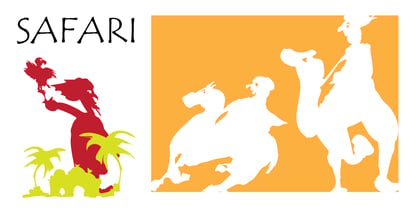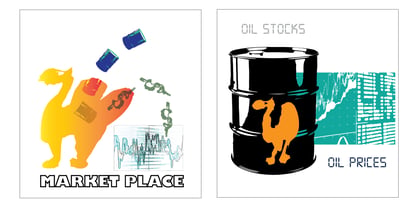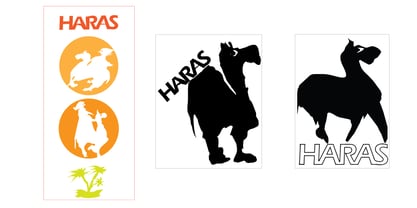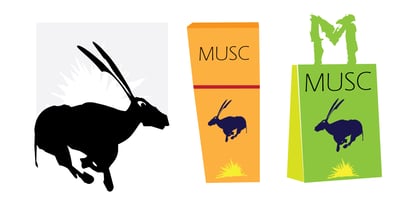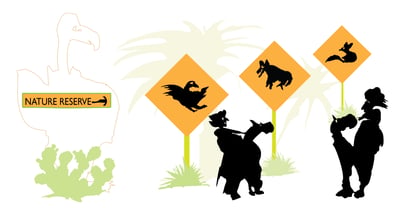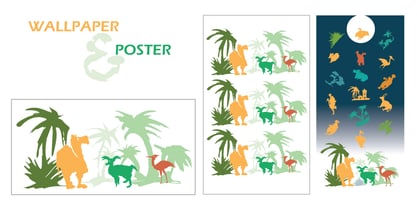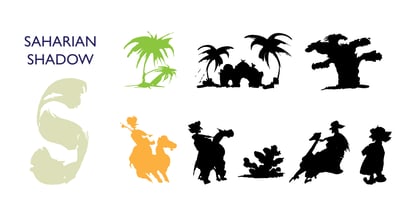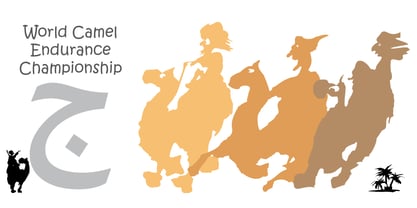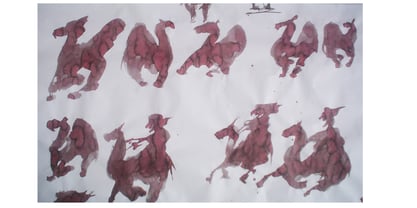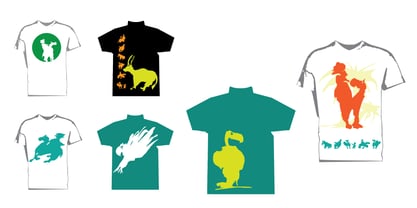
Saharian shadow
by SEMMAD
The Saharian shadow Font Family was designed by Taouffik S Semmad and published by SEMMAD. Saharian shadow contains 1 styles. More about this family
The population, flora, and fauna of this region are very interesting. This area is home to a wide variety of people, plants, and animals that have adapted to an arid environment. But in this quiet and serene place, a mysterious and little-known life seeks silence and tranquility. Adapting it into humorous pictograms could be useful for signage during discoveries and tourist visits, as well as in advertising, book illustrations, parties, and cartoons, etc. In one of my illustrated books, I added some animal pictograms. I also made a first draft of an advertising clip for an oil company.
Designers: Taouffik S Semmad
Foundry: SEMMAD
SEMMAD is a new font library that stands out for its innovative approach to typographic design. All fonts and pictograms are first drawn by hand and then digitized, giving them a unique strength.Inspiration is drawn from current world events, most often.This is a form of expressionism that involves exploiting and transforming the calligraphic alphabet, then transforming it into typography.